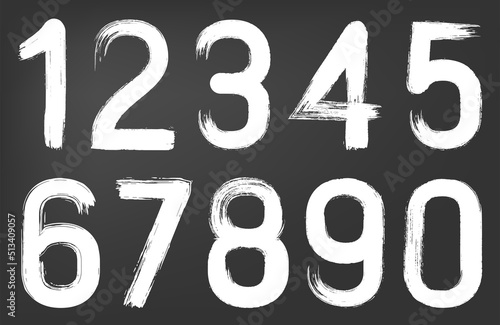
Handdrawn chalk number grunge white silhouette set. Educational school blackboard doodle kid typeface hipster paint dry typography numeral scrapbook sticker draw texture graffiti isolated on board